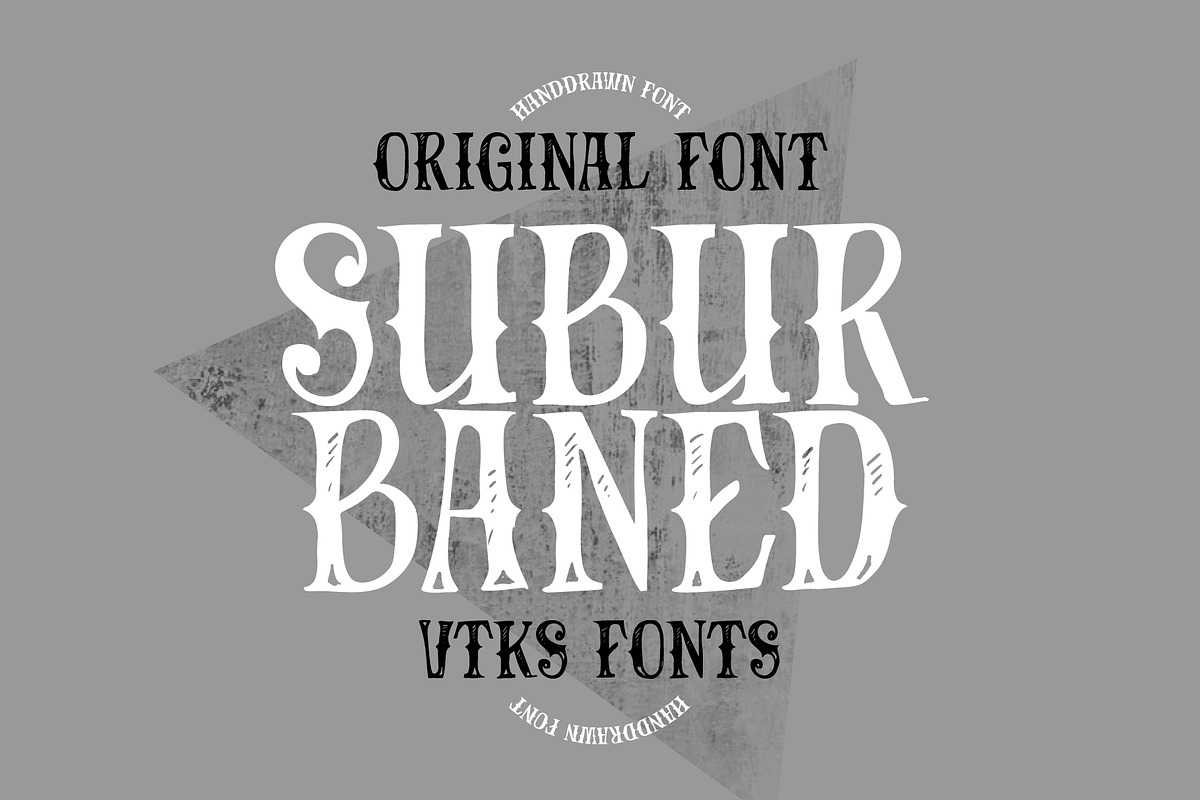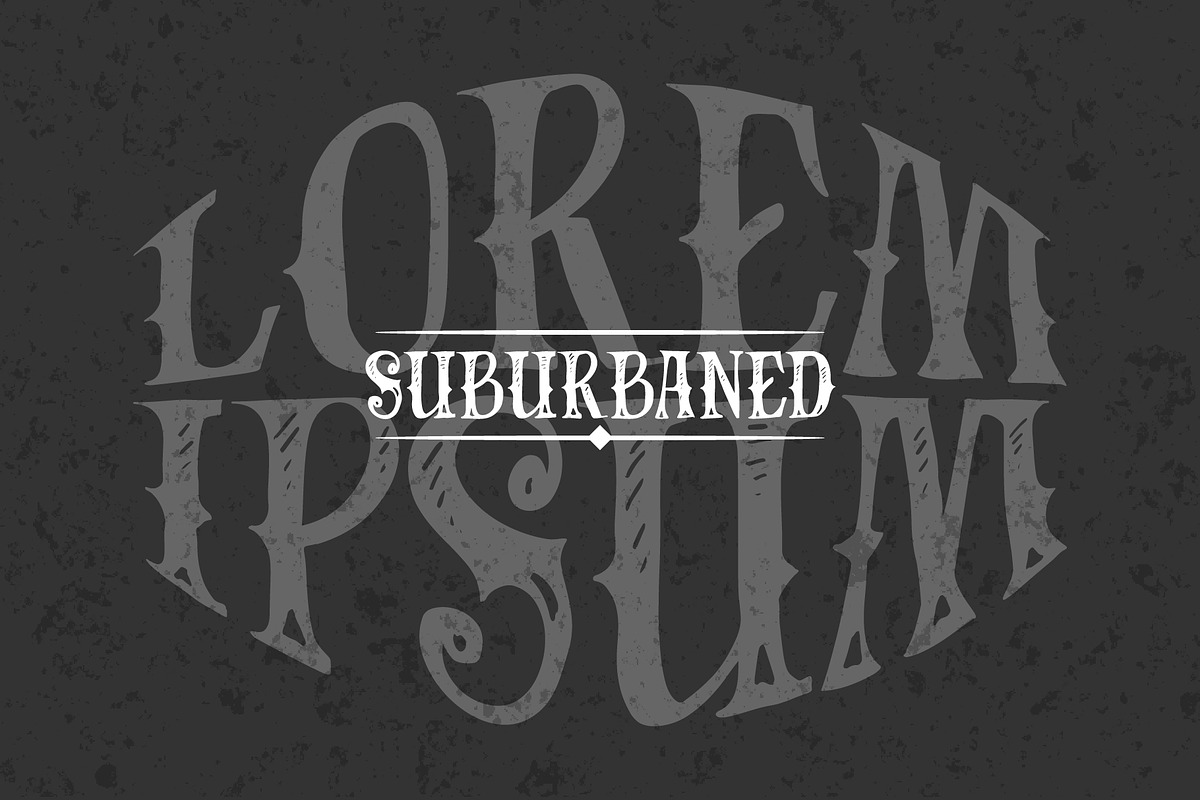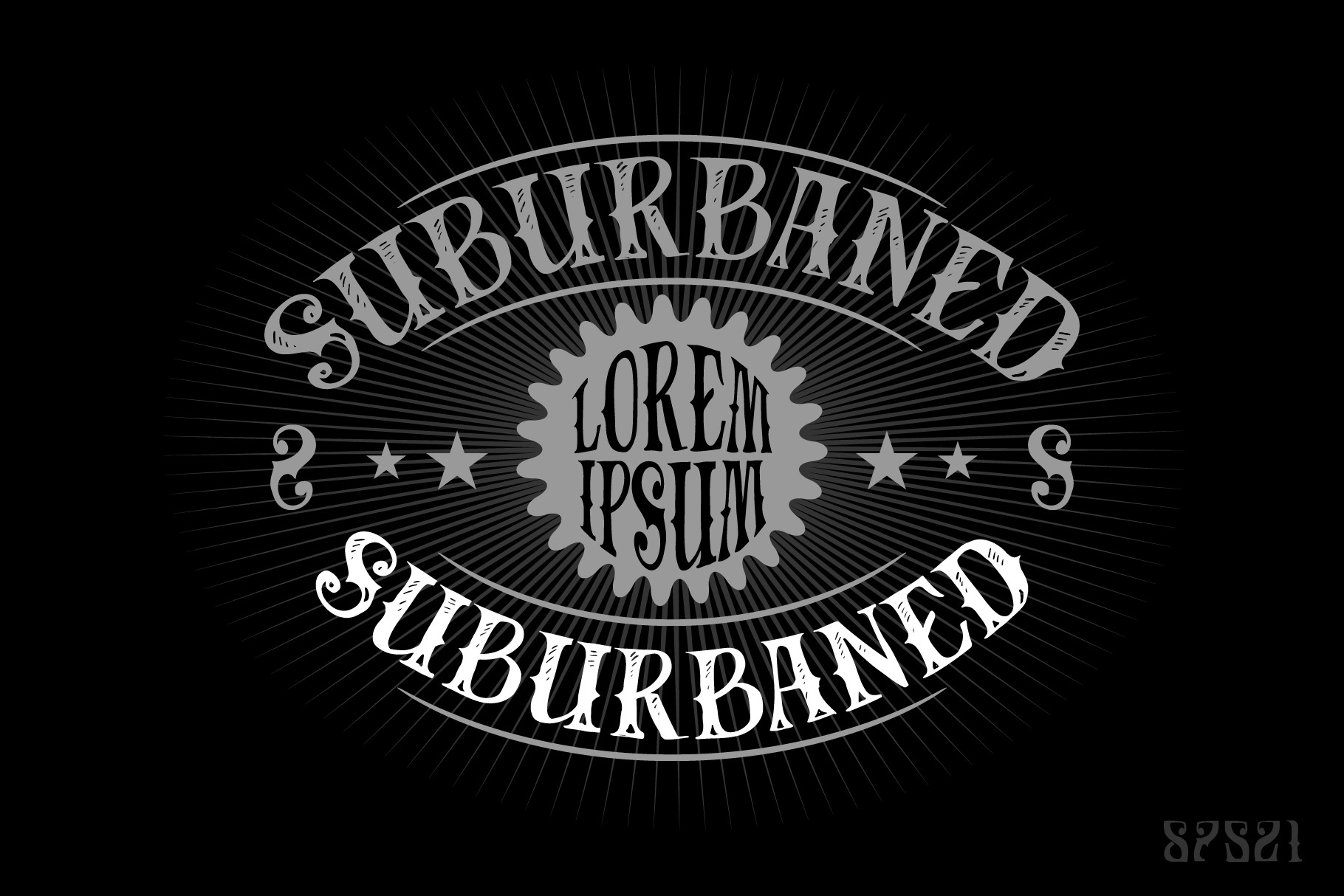
Suburbaned Font
Hand-drawn to give that artistic touch, which will make your project more beautiful. Perfect for print or web use, adding that flair and catching attention to your produc